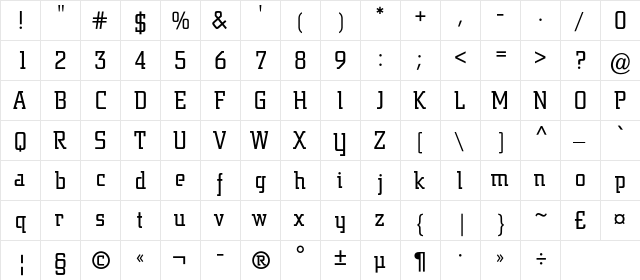
JargonB-Normal Regular
Design Context for JargonB-Normal Typeface
JargonB-Normal takes a measured approach to typography — its balanced proportions and neutral character make it a reliable workhorse for both digital and print work.